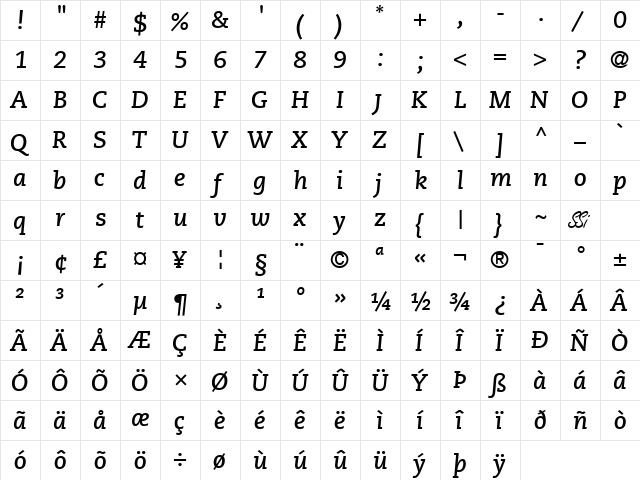
Monologue SSi Bold Italic Font Preview
Design Context for Monologue SSi Typeface
Monologue SSi uses fixed-width spacing throughout, giving it the structured, systematic character associated with coding environments and technical documentation. The slanted form adds forward momentum and visual energy. The heavy weight commands attention and anchors typographic hierarchies.
Pro Tip: Pair Monologue SSi with a proportional sans for UI contexts where code-style labels and regular body copy need to coexist.